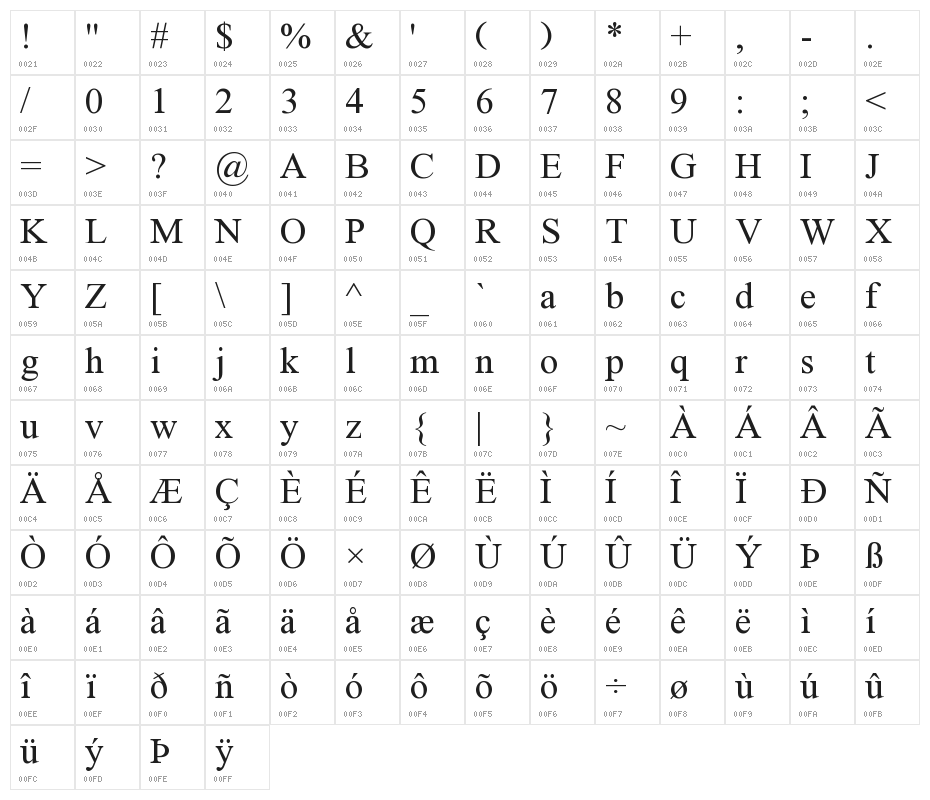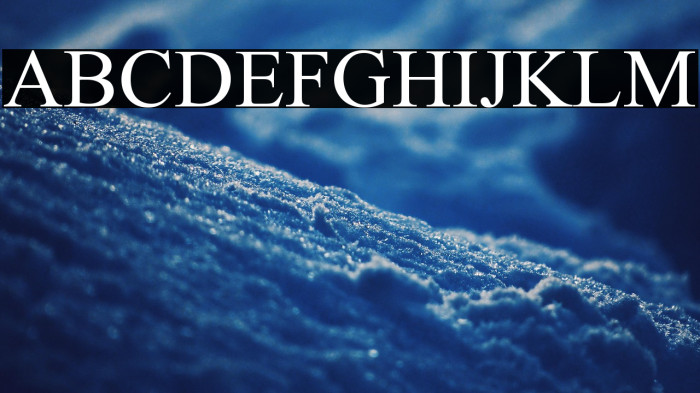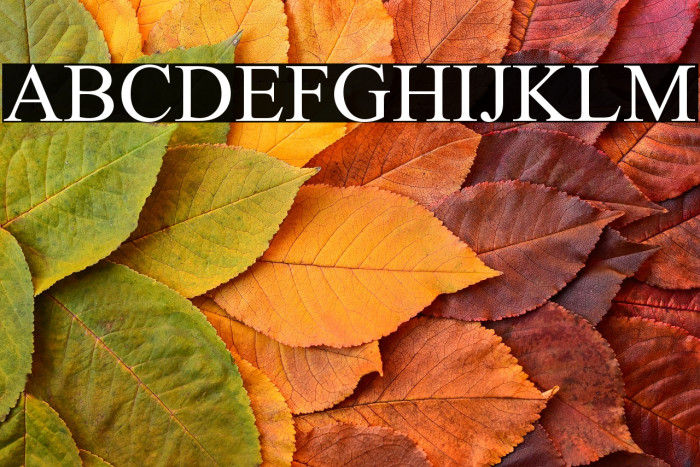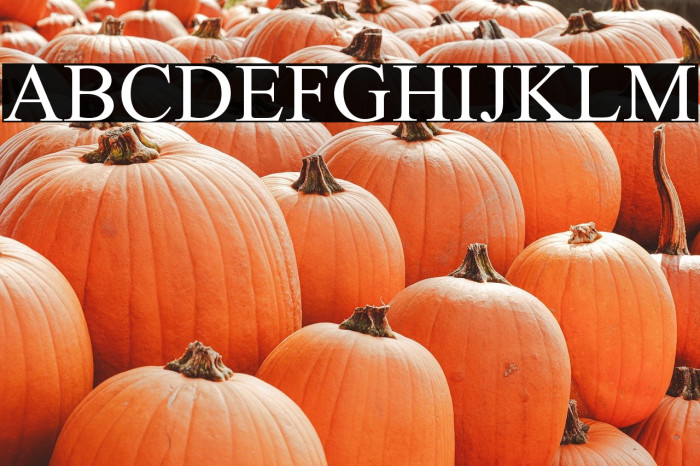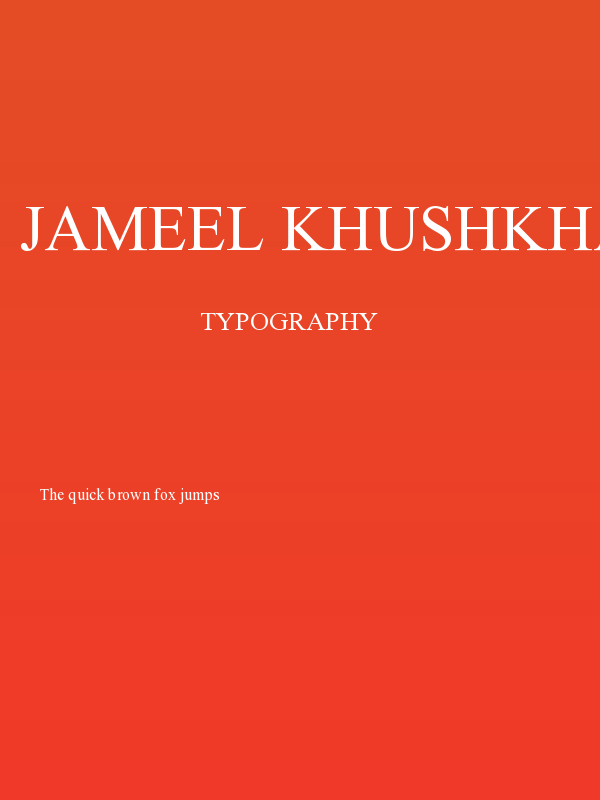
Jameel Khushkhat-LK Font
Jameel Khushkhat-LK Description
This font features a classic serif style with elegant and refined strokes. The uppercase letters are bold and commanding, while the lowercase letters maintain a graceful balance. The numerals are clear and distinct, making them suitable for various applications. The special characters are well-integrated, providing a cohesive look across all text elements. The font's design is timeless, offering a sophisticated appearance that is both versatile and functional.